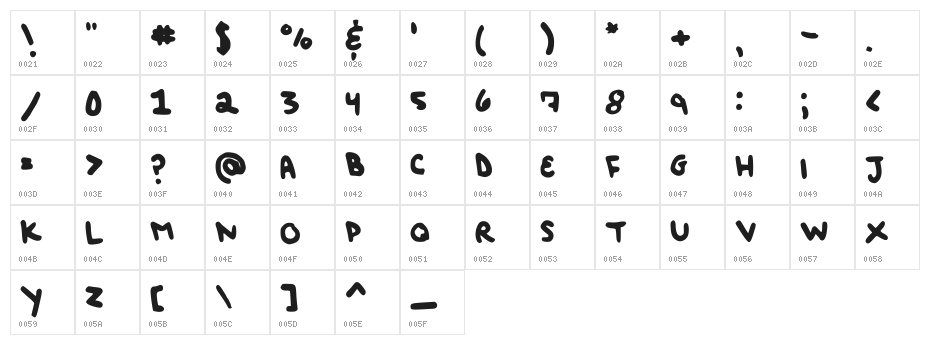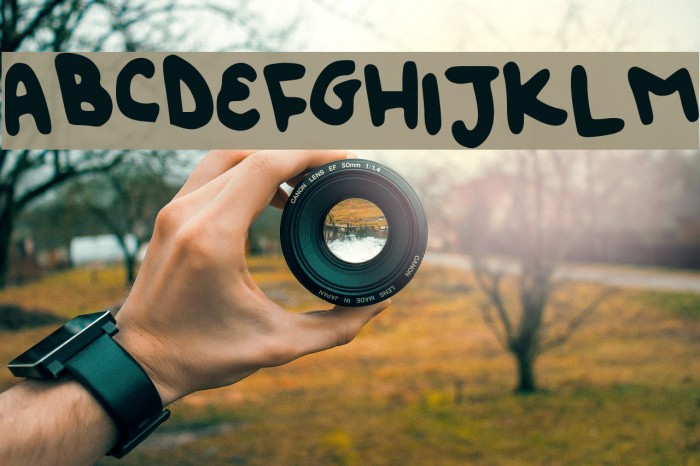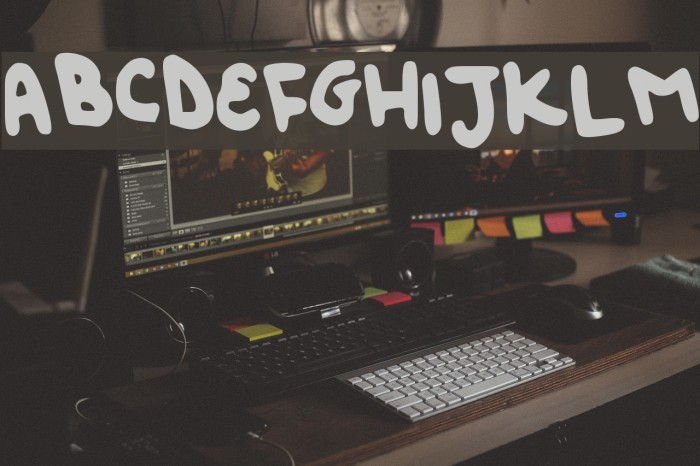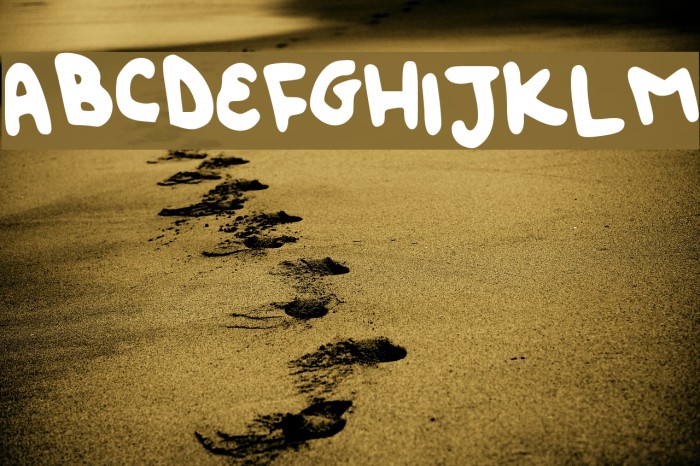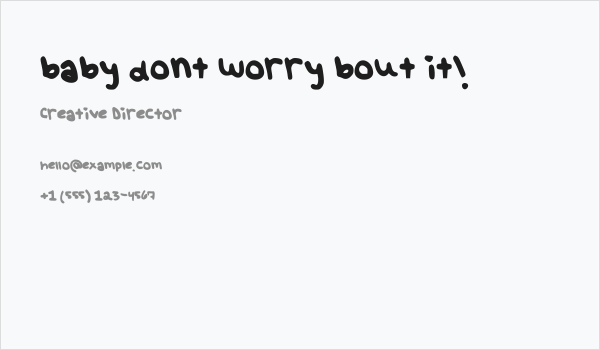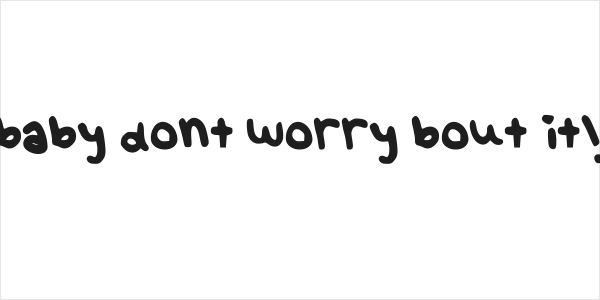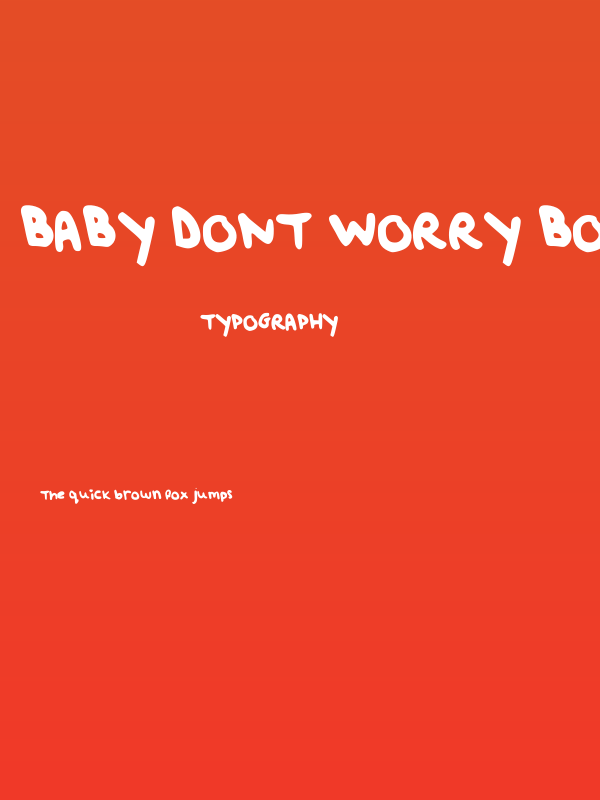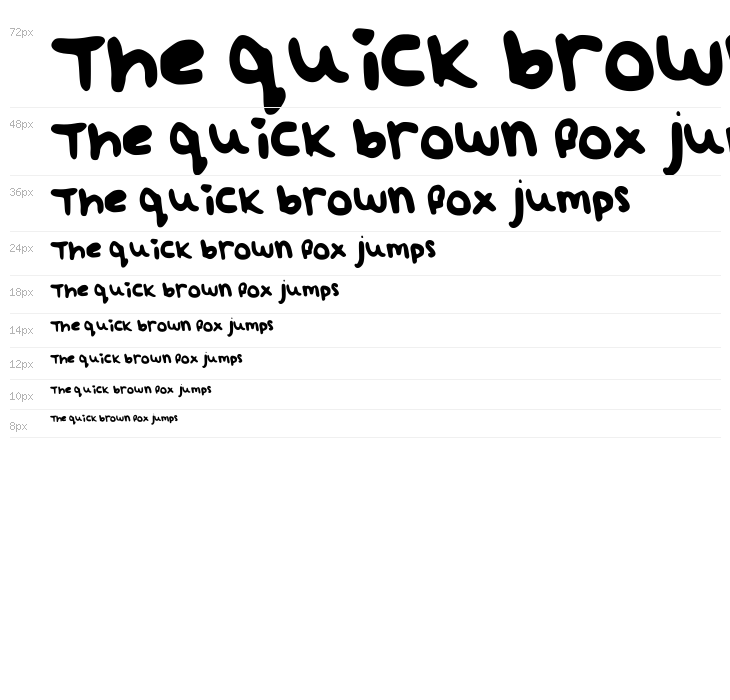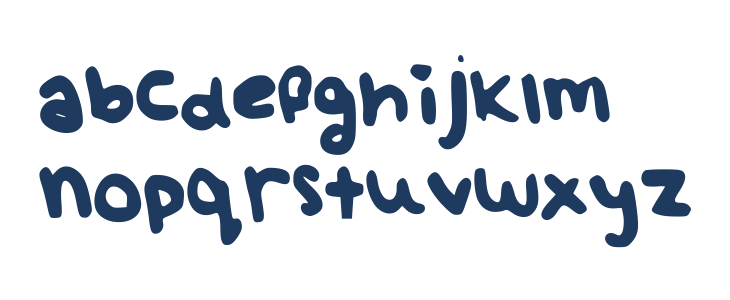
baby dont worry bout it! Font
baby dont worry bout it! Description
This playful and bold font features a handwritten style with thick, rounded strokes that give it a friendly and approachable appearance. The characters are slightly irregular, adding to the casual and informal feel. The uppercase and lowercase letters maintain a consistent style, with a whimsical touch that makes it suitable for creative projects. The numbers and special characters are equally bold and maintain the same playful aesthetic, ensuring a cohesive look across all text elements.
| Proposed Projects | Ideal for children's books, playful branding, casual invitations, and creative posters. |